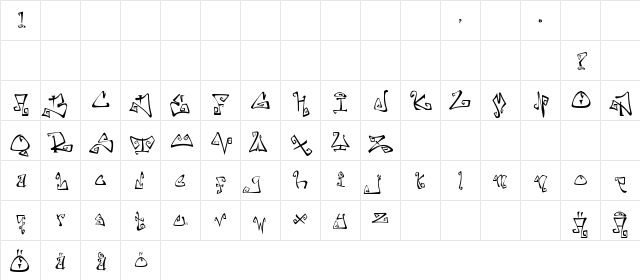
Farewell Eternity Regular
Foundry: High-Logic
Designer: High-Logic - Erwin Denissen
Design Context for Farewell Eternity
Farewell Eternity is a composed and adaptable typeface that performs quietly and consistently across a wide range of design contexts.